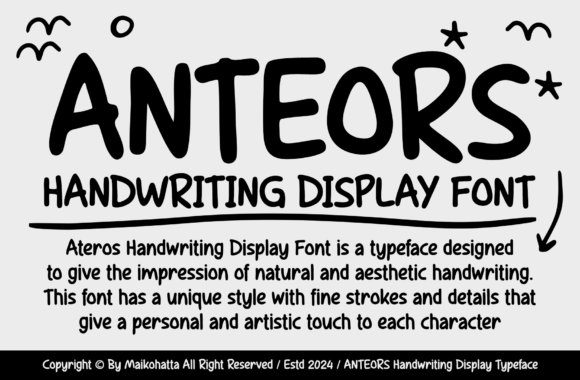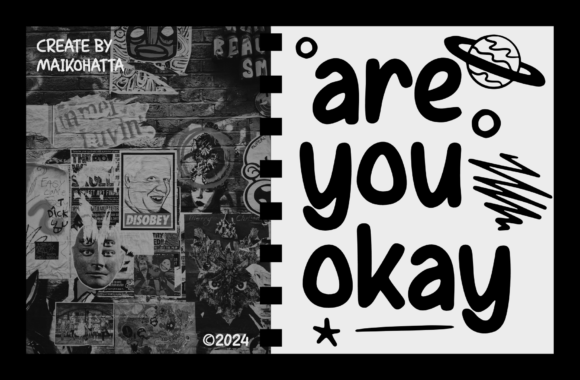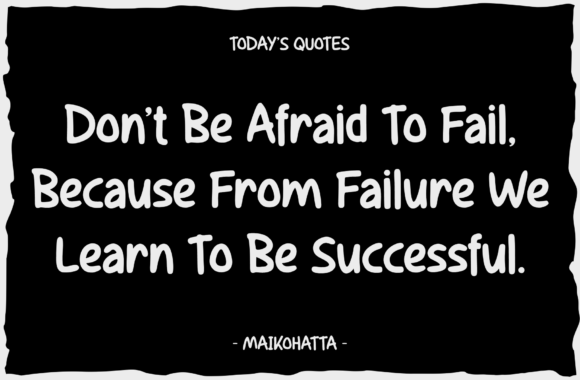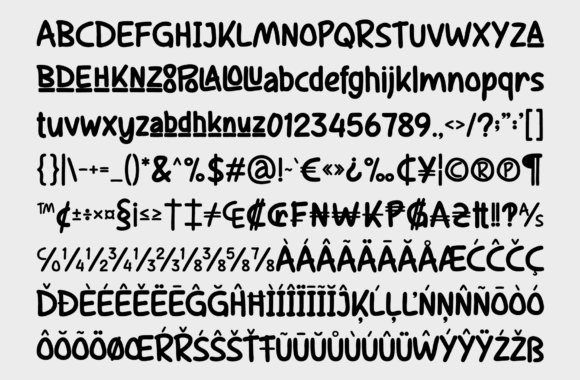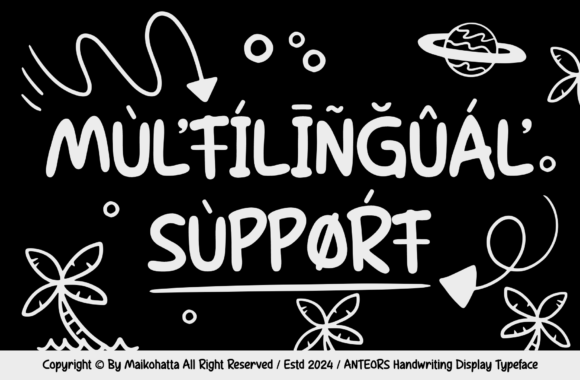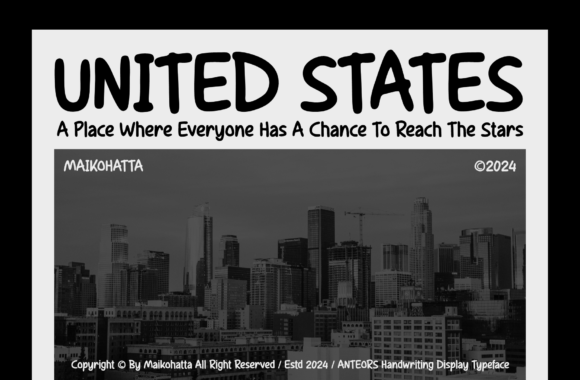
Introduction to Anteors Font
Introducing our new product **Anteors** – Handwriting Display **Anteors** – is a very flexible choice and can be used in a variety of design contexts.
Its ability to provide a clean, professional, contemporary look and its simplicity and visual appeal make this font good for use in the world of graphic design and modern typography .
Key Features of Anteors Font
Why Choose Anteors Font?